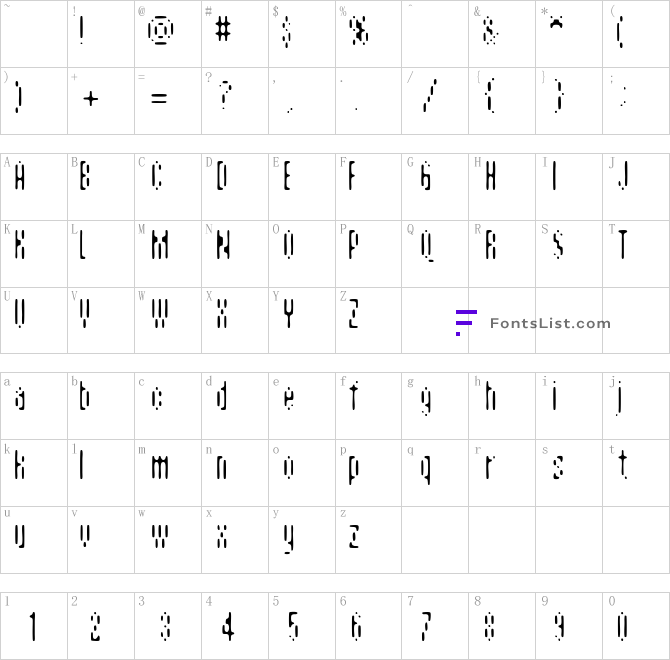
- Font Name:AspersionLight
- Full Name:AspersionLight
AspersionLight.ttf is a very beautiful artistic font, AspersionLight.ttf is widely used in the design and printing of various books and pictures,AspersionLight.ttf has a strong visual impact,AspersionLight.ttf is a commonly used font in newspapers, magazines and books, and is used in posters, e-commerce Poster design, store design, logo design, font design and other fields.AspersionLight.